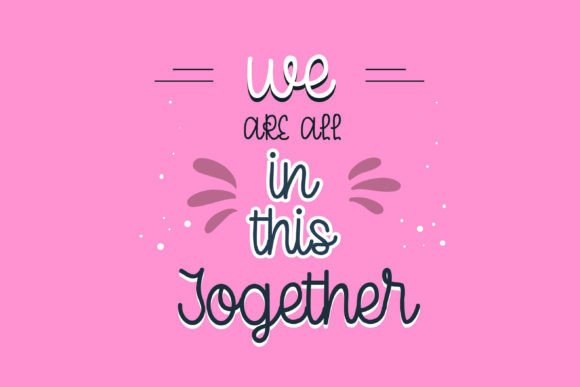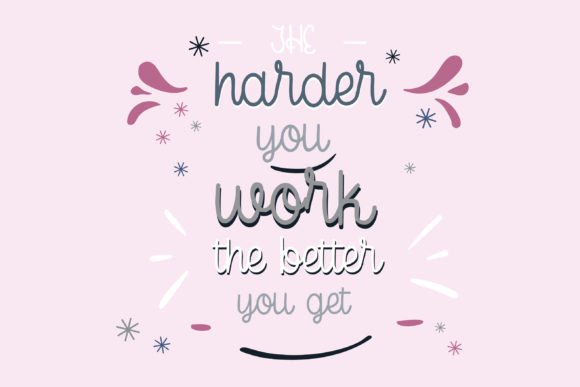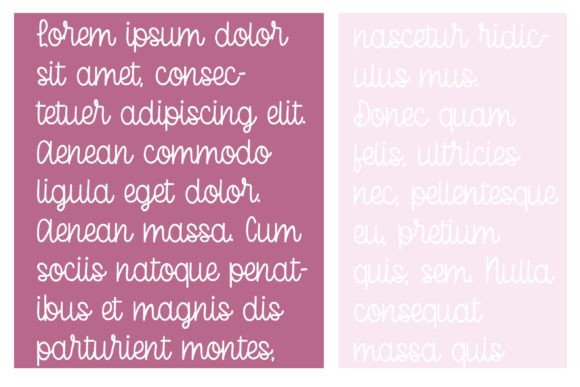
Dollie Script Font
Dollie Script is a delightful and quirky handwritten font that captures the essence of whimsy and playfulness. With its uneven strokes and charming imperfections, this font adds a touch of uniqueness to any project. Whether used for invitations, greeting cards, or crafty designs, Dollie Script brings a sense of joy and creativity, making it perfect for fun and lighthearted creations.